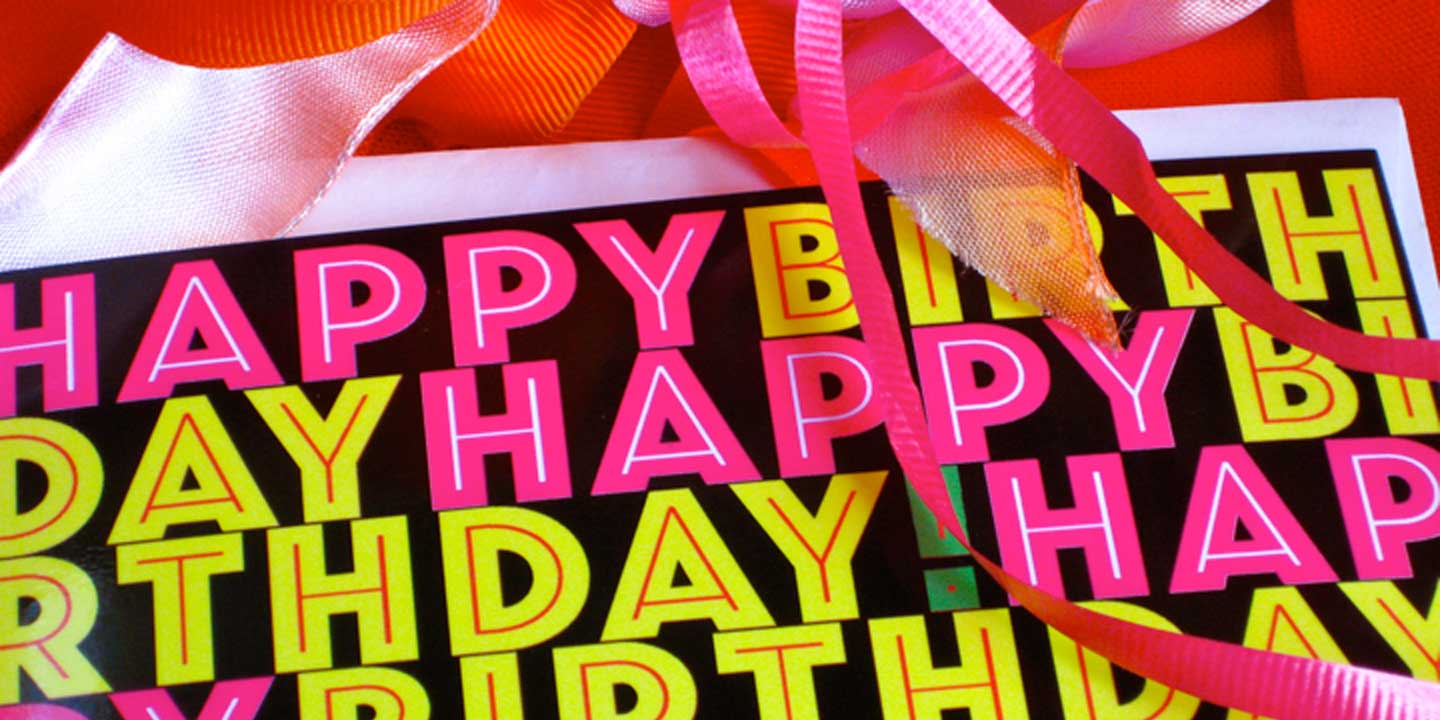
Zamenhof
Zamenhof™ is a family of five fonts that can be used singly or in combination to create a variety of bold, yet elegant, display styles. Inspired by Russian hand-lettering that appears to have been based on Jakob Erbar’s Phosphor, Zamenhof is essentially a Latin interpretation (with Cyrillic and Greek) of a Cyrillic interpretation of a Latin type design, with many improvements along the way. Zamenhof supports most European languages as well as modern Greek, and of course, Russian and other languages that use the Cyrillic alphabet. Needless to say, as Zamenhof is named after the father of Esperanto, it also supports Esperanto (as do all fonts from CastleType).